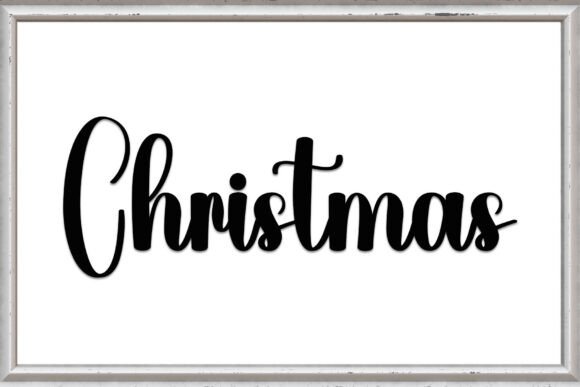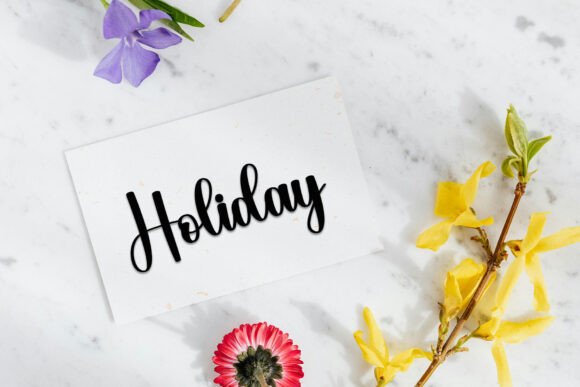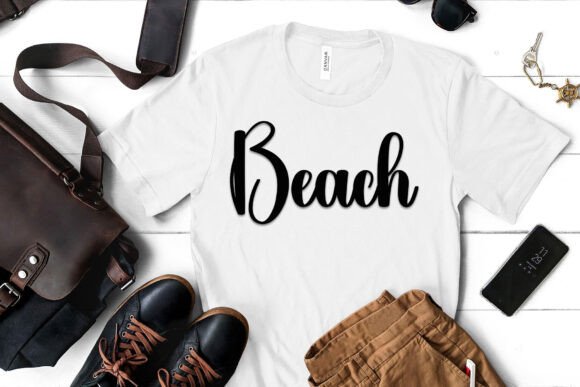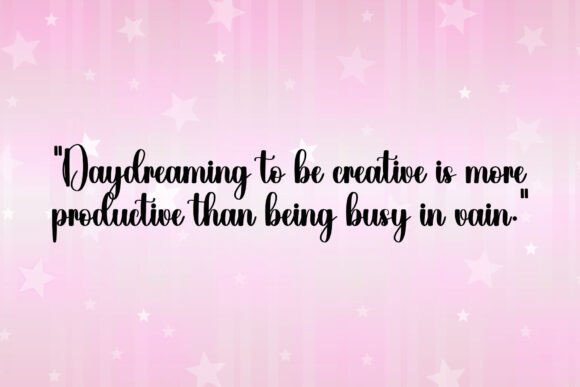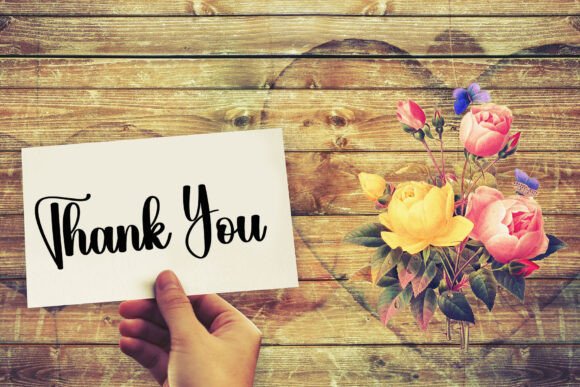
Introducing December Font: The Perfect Holiday Typeface for Your Designs
Are you looking for a font that embodies the spirit of the holiday season? Look no further than December Font, a festive and happy typeface that’s sure to add a touch of charm to your designs. With its decorative elements and unique flair, this font is perfect for greeting cards, gift labels, and holiday-themed projects.
A Festive and Happy Typeface
December Font is a carefully crafted typeface that’s designed to capture the magic of the holiday season. Its decorative elements, such as intricate swirls and flourishes, add a touch of elegance and sophistication to your designs. The font’s unique flair is sure to make your projects stand out, whether you’re creating greeting cards, gift labels, or holiday-themed posters.
December Font is perfect for a wide range of holiday projects, including:
- Greeting cards: Add a personal touch to your holiday greeting cards with December Font’s decorative elements and unique flair.
- Gift labels: Make your gifts extra special with custom labels featuring December Font.
- Holiday-themed posters: Create eye-catching posters for your holiday events or promotions with December Font.
- Social media graphics: Add a touch of holiday cheer to your social media graphics with December Font.
December Font is PUA (Private Use Area) coded, which means you can access all the amazing glyphs and ligatures easily. This makes it simple to add decorative elements and unique flair to your designs, without having to worry about complicated font editing software.
Benefits of Using December Font
There are many benefits to using December Font for your holiday projects, including:
- Unique and festive designs: December Font’s decorative elements and unique flair are sure to make your designs stand out.
- Easy to use: December Font is PUA coded, making it simple to access all the amazing glyphs and ligatures.
- Time-saving: With December Font, you can create professional-looking designs in no time.
- Versatile: December Font can be used for a wide range of holiday projects, from greeting cards to social media graphics.
Tips for Using December Font
Here are a few tips for getting the most out of December Font:
- Experiment with different sizes and colors: December Font looks great in a variety of sizes and colors, so don’t be afraid to experiment.
- Pair with other fonts: December Font pairs well with a range of other fonts, so try pairing it with a simple sans-serif font for a contrasting look.
- Use decorative elements: December Font’s decorative elements are one of its best features, so be sure to use them to add a touch of flair to your designs.